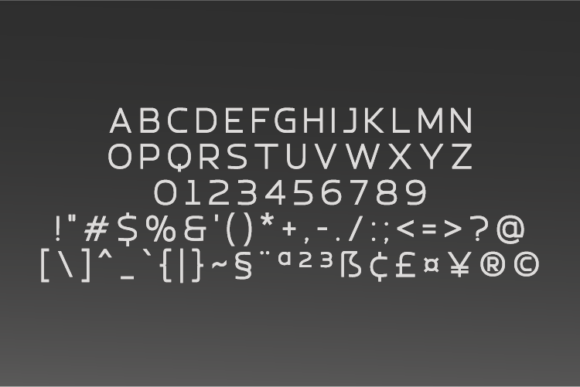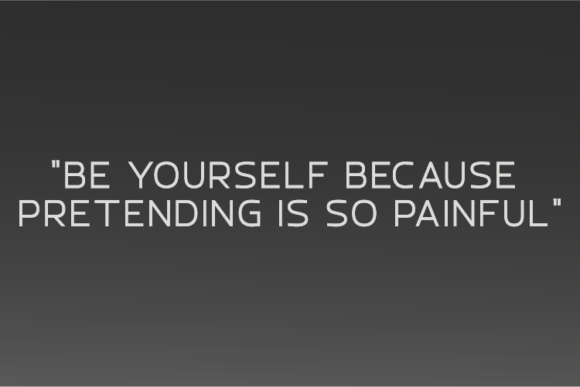
The Sweet Taste of Design
Have you ever been browsing through a beautifully designed website, and suddenly you’re struck by a font that just feels right? For me, that moment happened when I stumbled upon a logo that used Applemilk Font. The clean lines and smooth curves of this sans serif font immediately caught my attention, and I knew I had to learn more about it.
Applemilk Font is a versatile and elegant typeface designed to work seamlessly for logos, branding, and web headings. Its delicate lines and subtle curves make it perfect for creating a professional and modern look. As a designer, I can appreciate the value of having a reliable font that can elevate my work and make it stand out from the crowd.
Applemilk Font Key Features
- Font Family: Applemilk is a sans-serif font family designed to be clean and modern.
- Character Set: Supports a wide range of languages, including Latin, Cyrillic, and Greek scripts, with over 2000 glyphs in the full font family.
- Font Size: Available in 4 weights: Light (100), Regular (400), Medium (500), and Bold (700) to cater to different design needs.
- Resolution: Designed to be scalable and legible at high resolutions, making it suitable for both print and digital applications.
- Unique Characteristics: Applemilk features a unique blend of rounded and geometric shapes, resulting in a friendly and approachable feel.
Applemilk Font Review
Applemilk Font, designed by Lettering Movement, is a modern sans-serif font that aims to capture the feeling of freshness and purity. Here’s my honest review.
- Applemilk’s clean lines and rounded edges create a friendly and approachable atmosphere, perfect for branding and marketing materials.
- The font’s subtle weight variations provide flexibility for use in different contexts, from headings to body text.
- Applemilk is highly legible, making it an excellent choice for digital platforms, signage, and other applications where readability is crucial.
- Applemilk’s design may feel too generic or unremarkable for some users, particularly in competitive markets where a unique visual identity is essential.
- The font’s simplicity can make it prone to misuse or overuse, leading to a lack of visual interest or hierarchy in designs.
Overall, Applemilk Font is a solid, versatile choice for designers looking for a clean and approachable sans-serif font. While it may not stand out in crowded markets, its flexibility and legibility make it a reliable option for a wide range of applications.
Tips for Getting the Most Out of Applemilk Font
For the best results, use Applemilk Font in conjunction with bold or italic text to add emphasis and create visual interest.
Experiment with different font sizes and styles to find the perfect balance for your design.
Alternatives to Applemilk Font
Lato Font is a sans-serif typeface that offers a clean and modern look. It is suitable for use in digital interfaces, magazines, and online publications. It has a more geometric feel compared to Applemilk Font, which makes it more versatile and easy to read at various font sizes.
Montserrat Font is a geometric sans-serif typeface designed for urban environments. It has a strong, modern feel that is ideal for use in headlines, titles, and digital interfaces. While it shares some similarities with Applemilk Font in terms of its modern aesthetic, Montserrat Font has a more angular and industrial feel.
Avenir Font
Avenir Font is a sans-serif typeface that is inspired by the modernist and Art Deco movements. It has a clean, elegant look that is suitable for use in corporate branding, magazines, and high-end publications. Avenir Font has a more refined and sophisticated feel compared to Applemilk Font, making it a good choice for projects that require a premium look.
Inter Font is a modern sans-serif typeface that is designed for digital interfaces. It has a clean, neutral look that is suitable for use in websites, mobile apps, and online publications. Inter Font has a more minimalist feel compared to Applemilk Font, making it a good choice for projects that require a simple and unobtrusive typography.